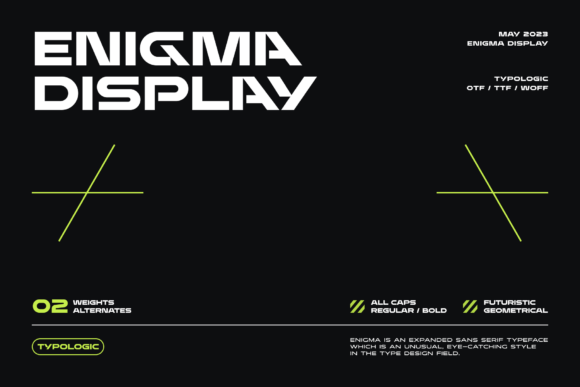
Step into the realm of visual allure with Enigma Display Font, a stroke of brilliance that captivates the eyes and ignites the imagination. Its expanded sans serif structure, an anomaly in the world of type design, unveils a harmony of characters that resonate with unwavering strength and consistency. Engage your audience with a font that transcends the ordinary, carrying your message with unrivaled impact.
Unleash your creativity with a diverse selection of alternate characters, meticulously crafted to empower you with boundless possibilities. Craft unique compositions that radiate individuality, setting your brand apart in a sea of sameness. Whether you grace posters with bold statements or weave captivating headlines, Enigma Display Font empowers you to make an indelible mark.
Immerse yourself in the versatility of Enigma Display Font, a font that adapts seamlessly to a myriad of design landscapes. Its innate charm shines through in both web and print media, effortlessly elevating your digital presence and leaving a lasting impression on tangible creations. From dynamic logos that command attention to brochures that exude professionalism, Enigma Display Font is your trusted companion in the quest for design excellence.